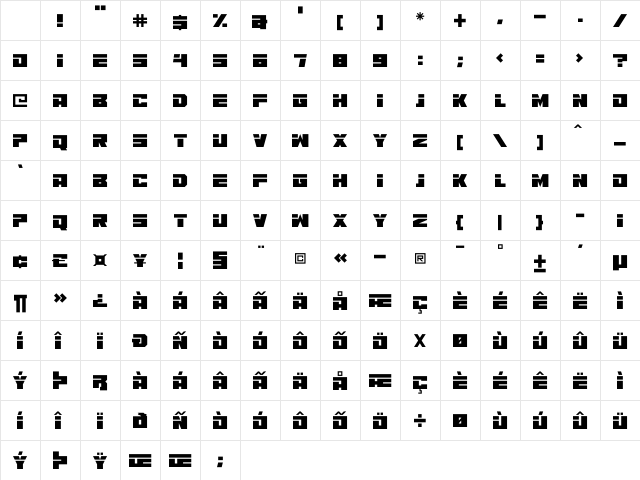
Robot Monster Regular Free Font
Robot Monster Regular
Design Context for Robot Monster
Robot Monster is a composed and adaptable typeface that performs quietly and consistently across a wide range of design contexts.